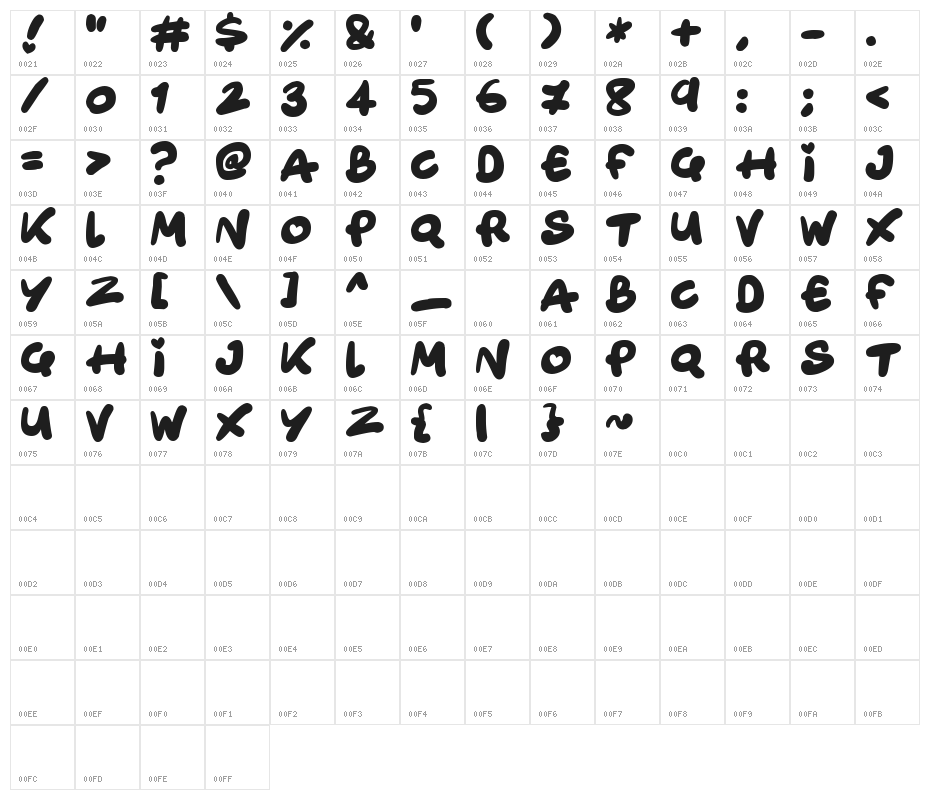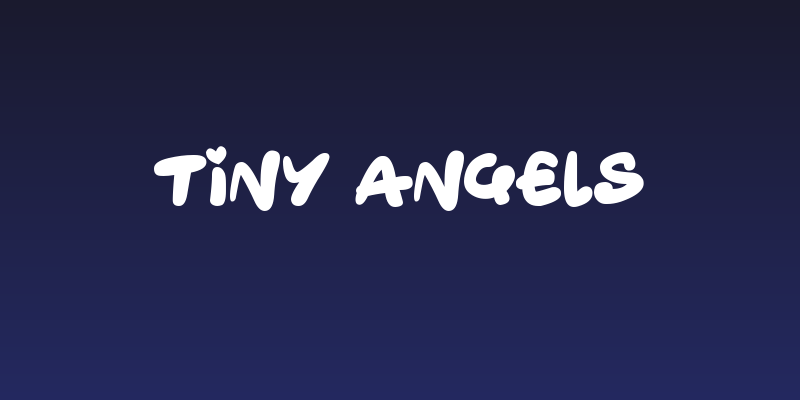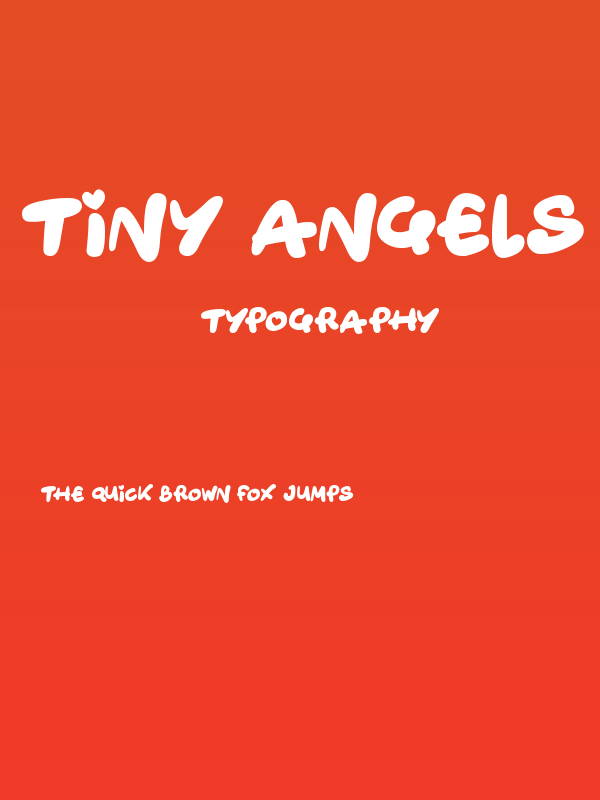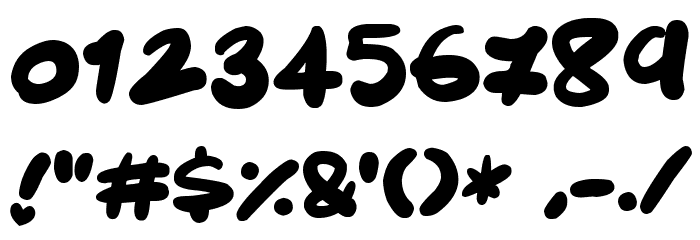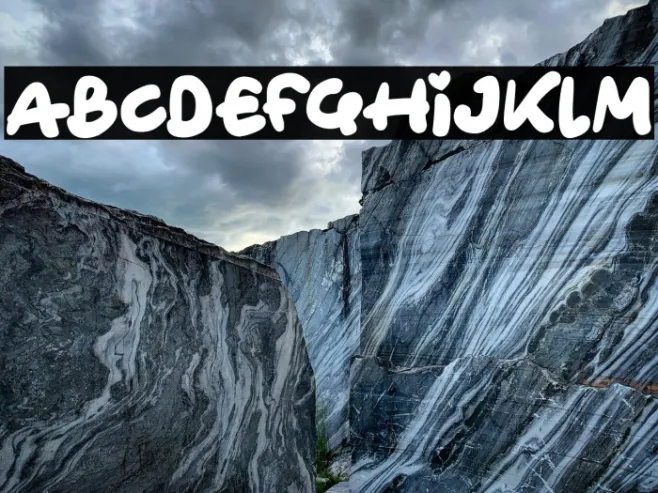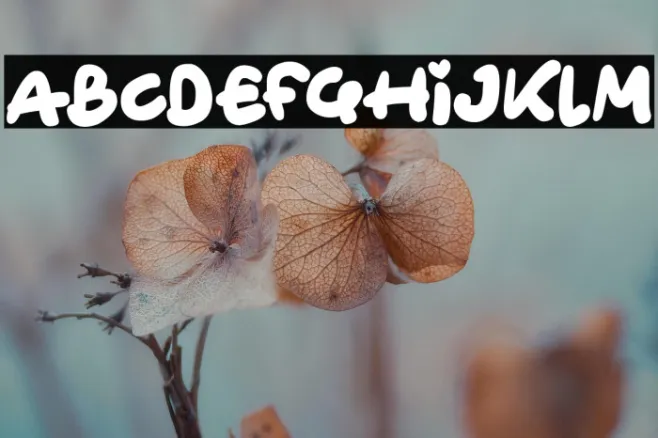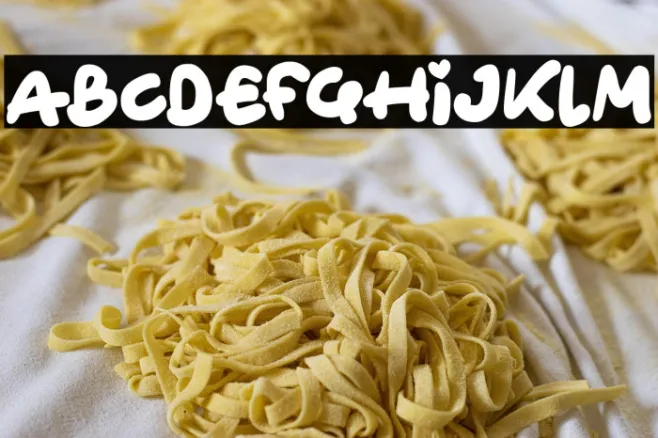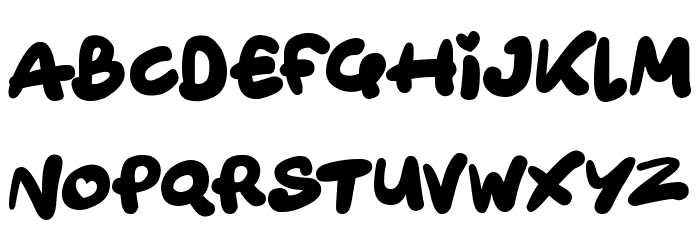
Tiny Angels Font
Tiny Angels Description
This playful and whimsical font features bold, rounded characters with a hand-drawn aesthetic. The letters are characterized by their thick strokes and smooth curves, giving them a friendly and approachable appearance. The unique design includes small heart shapes incorporated into some of the letters, adding a touch of charm and personality. The numbers and special characters maintain the same playful style, ensuring consistency throughout. This font is ideal for projects that require a fun and informal touch, such as children's books, greeting cards, or playful branding.
| Proposed Projects | Ideal for children's books, greeting cards, playful branding, and informal invitations. |